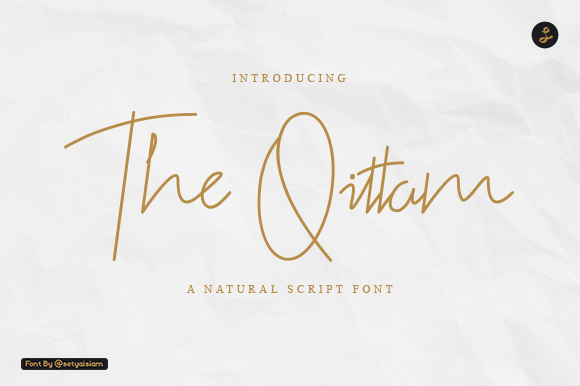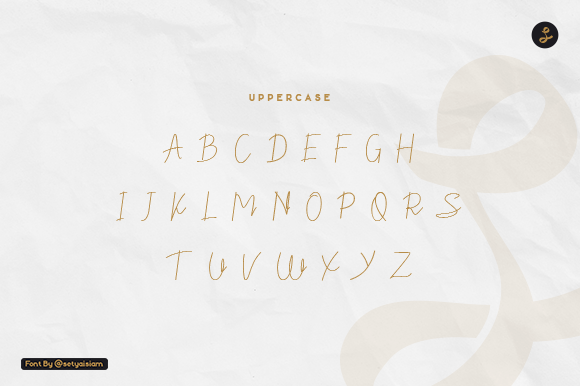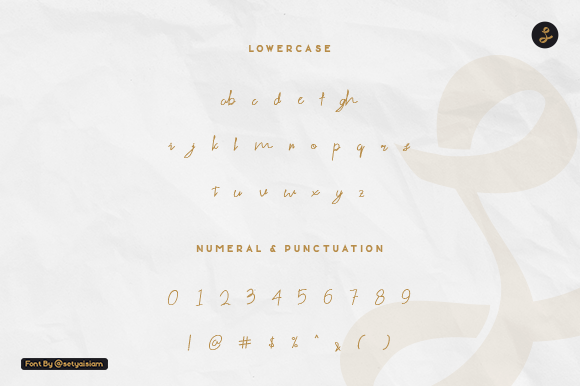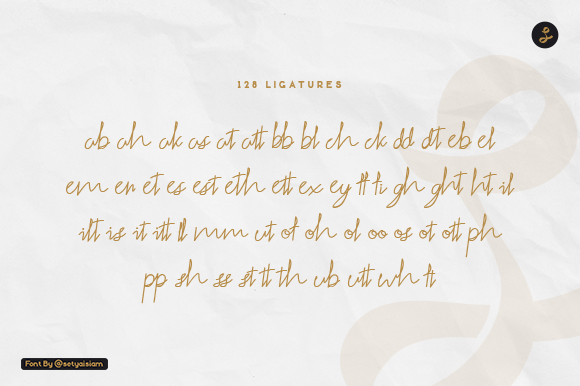
The Qittam Font
The Qittam is a gorgeous handwritten font. This stunning typeface is a stylish homage to classic calligraphy. It features a varying baseline, smooth lines, gorgeous glyphs and stunning alternates.
Fall in love with its authentic feel and use it to create gorgeous wedding invitations, beautiful stationary art, eye-catching social media posts, and cute greeting cards.